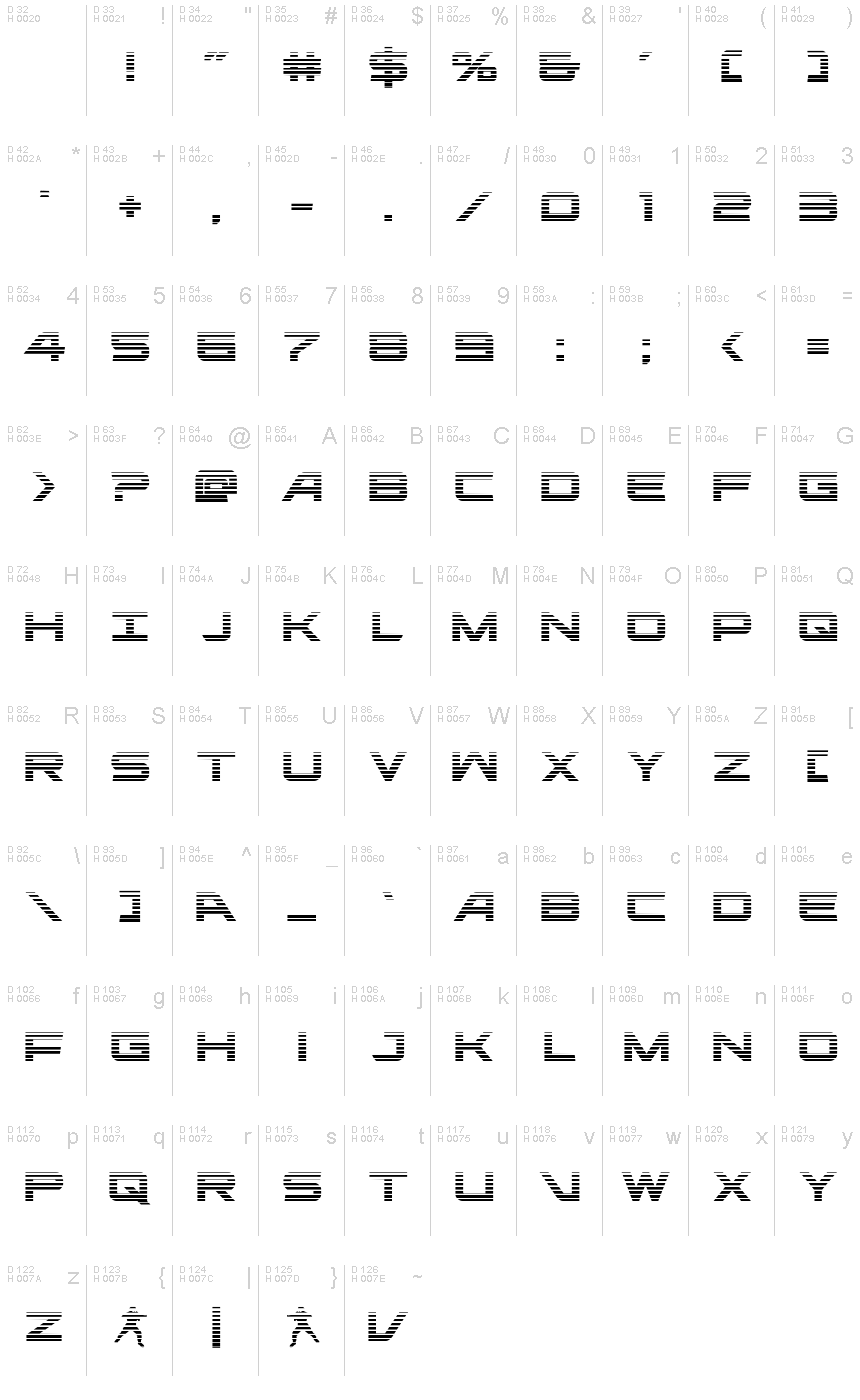
A Tom Clancy inspired logo font. Version 1.1 has wider letter spacing.
Prezentacja i próbka wizualna czcionki Ghost Clan Gradient Regular
Mapa znaków czcionki Ghost Clan Gradient Regular
Glify czcionki Ghost Clan Gradient Regular — Podstawowy łaciński, strona 1
Ghost Clan Gradient
Ghost Clan Gradient Regular